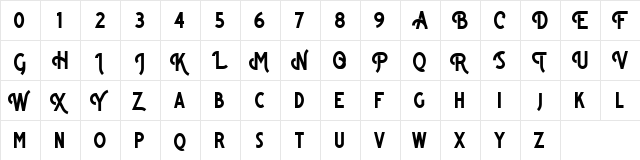
Bigsmile Sans Regular
| Designer | Iqrologo |
Design Context for Bigsmile Sans Typeface
Bigsmile Sans is a composed and adaptable typeface that performs quietly and consistently across a wide range of design contexts.